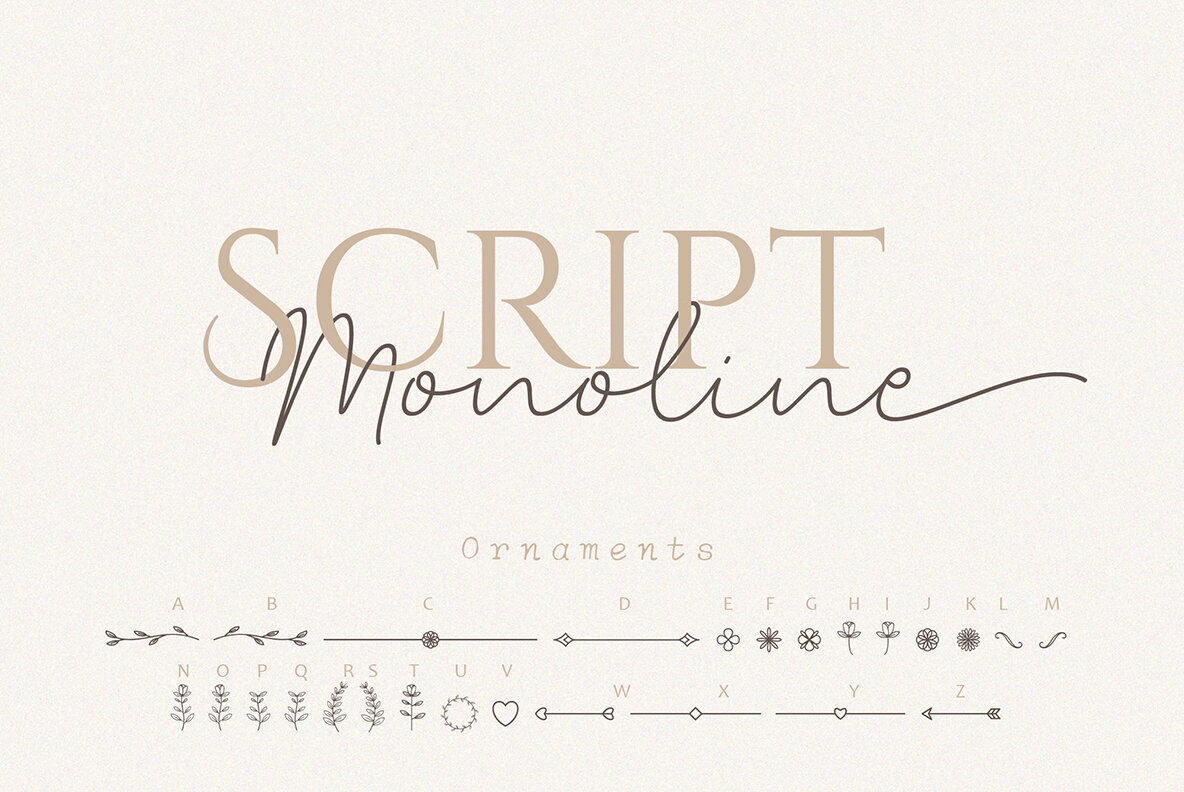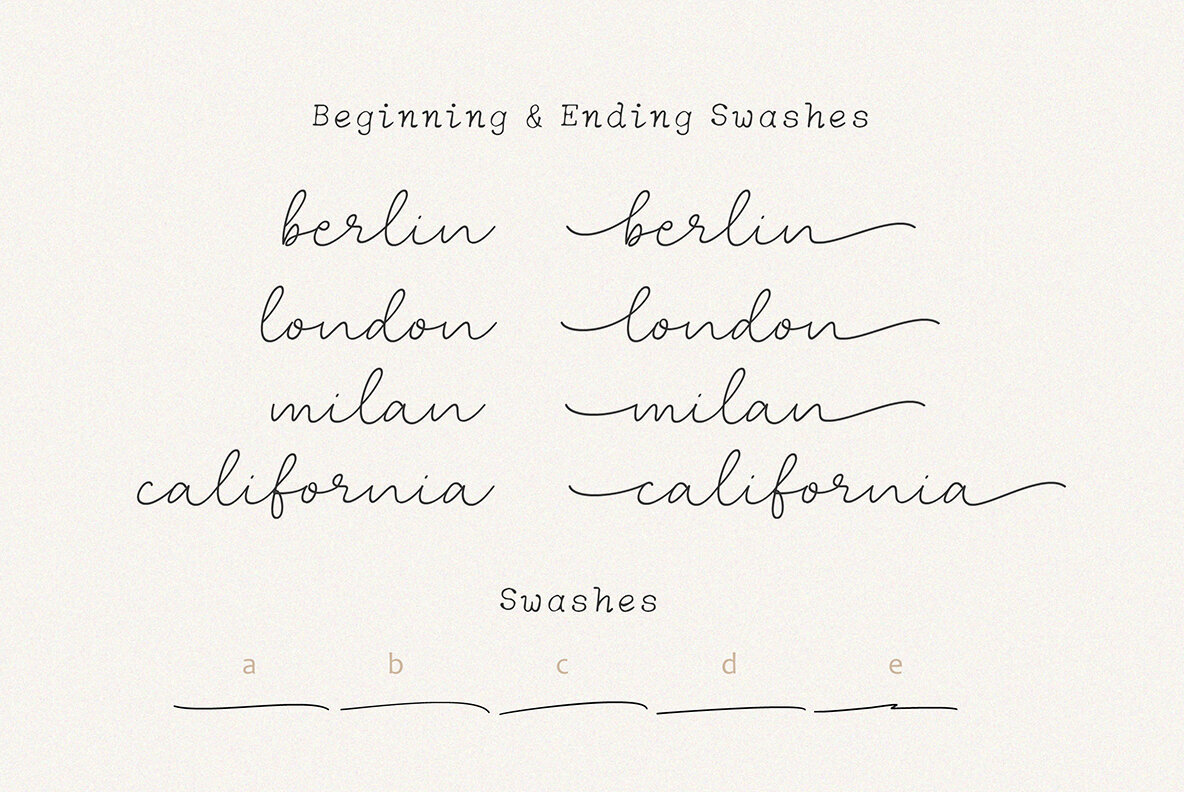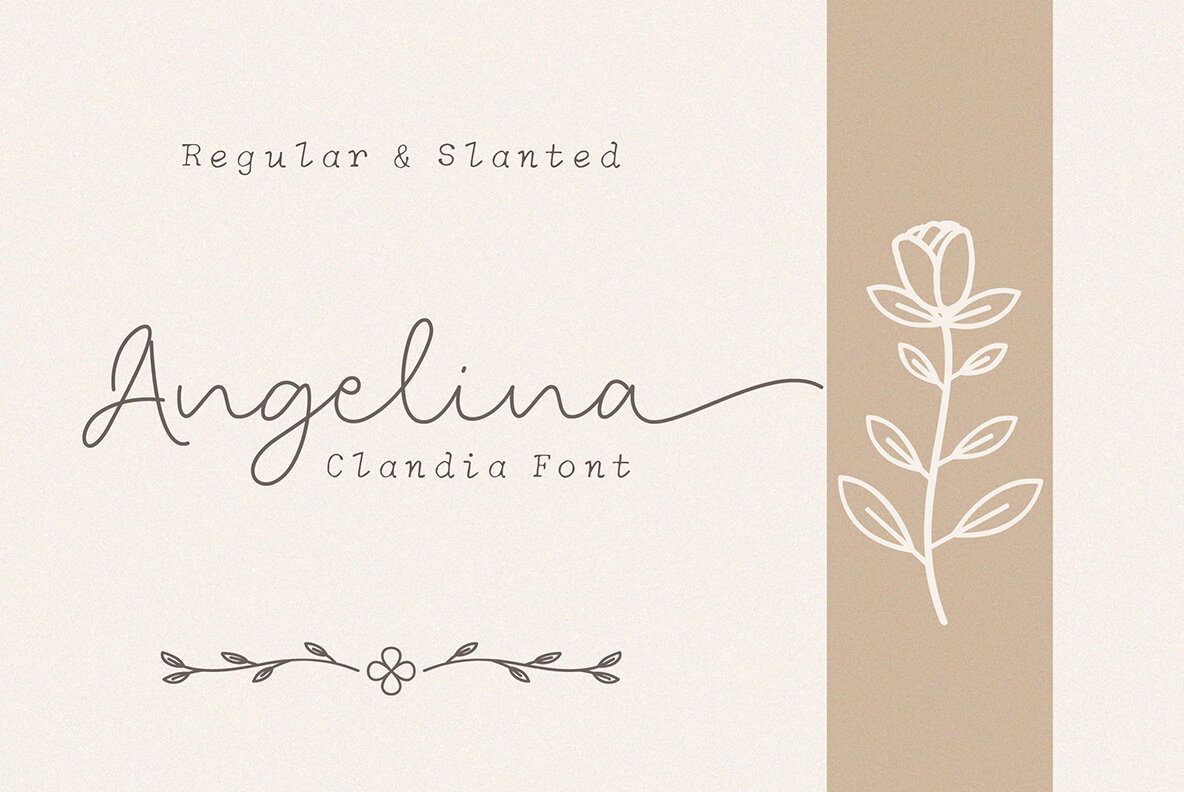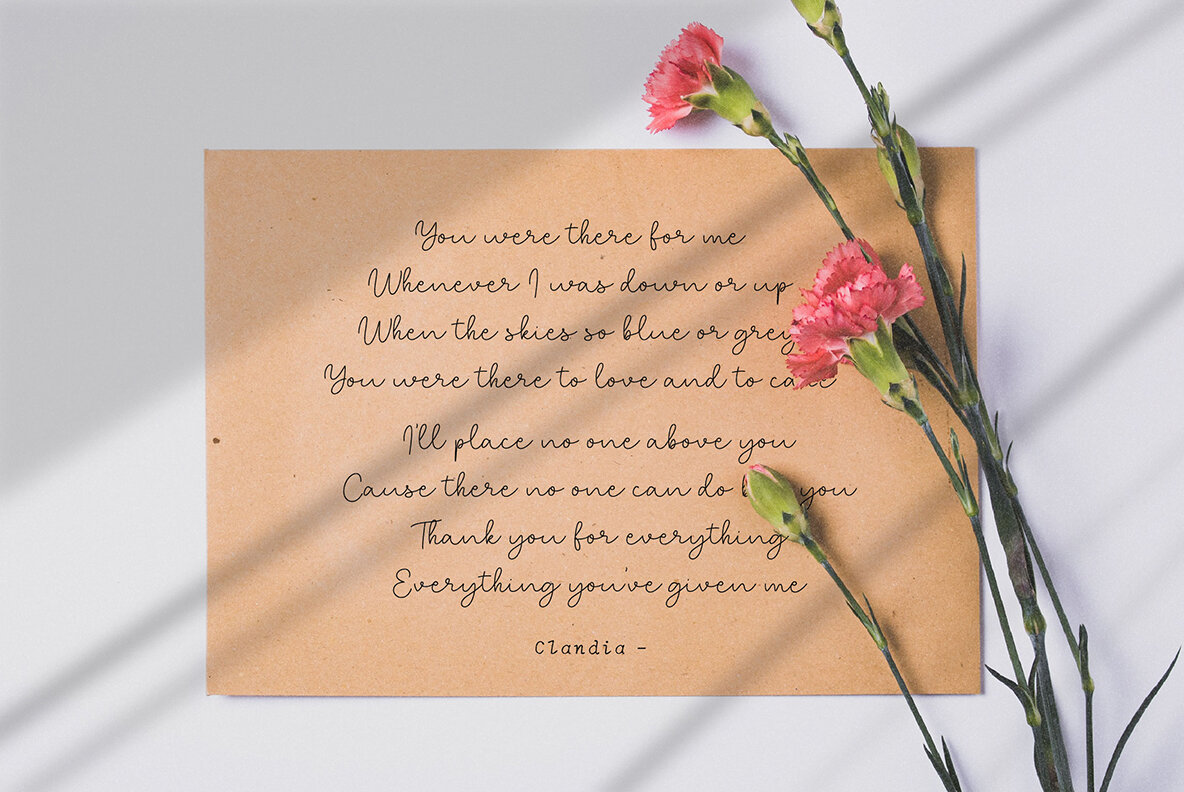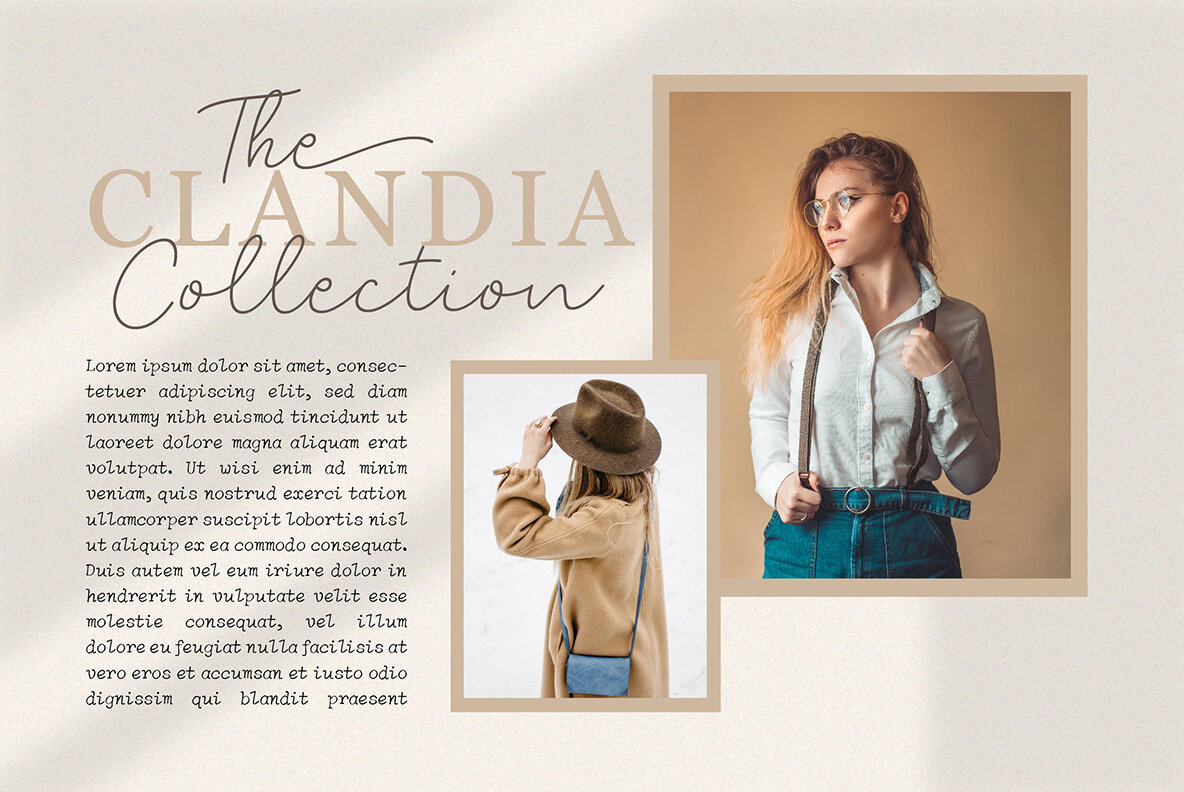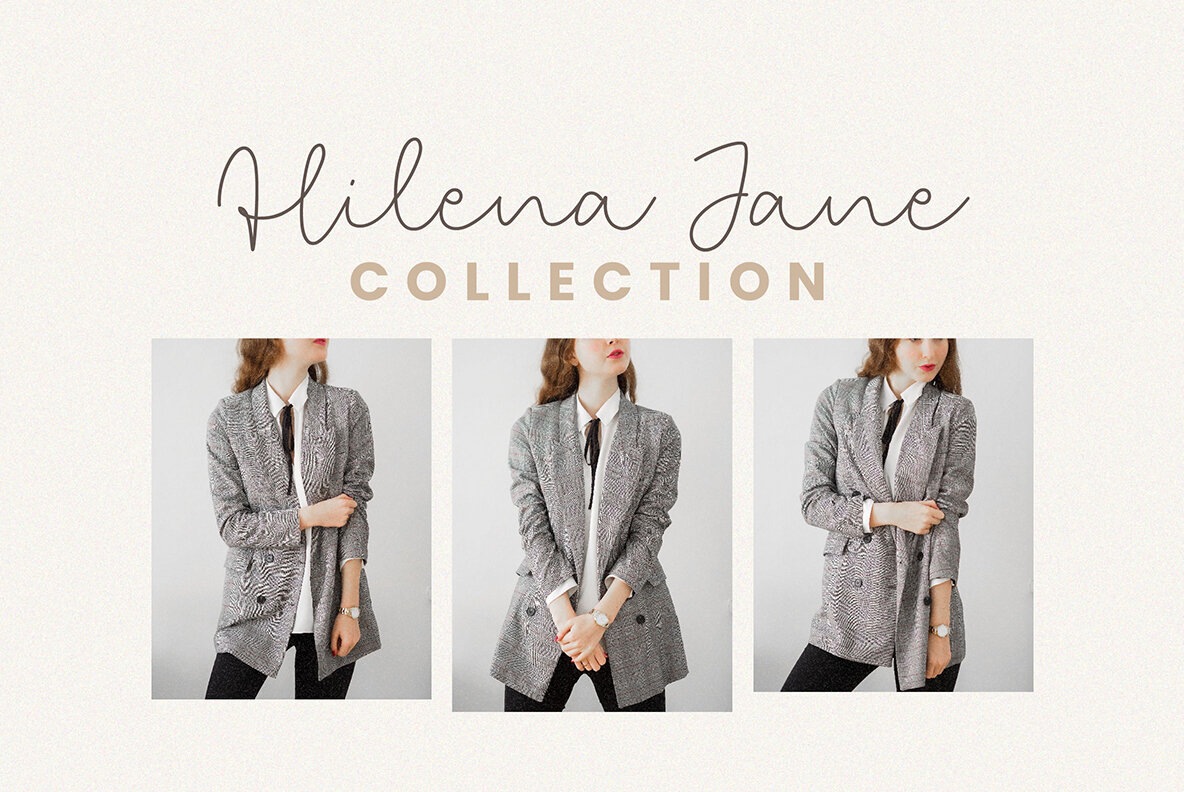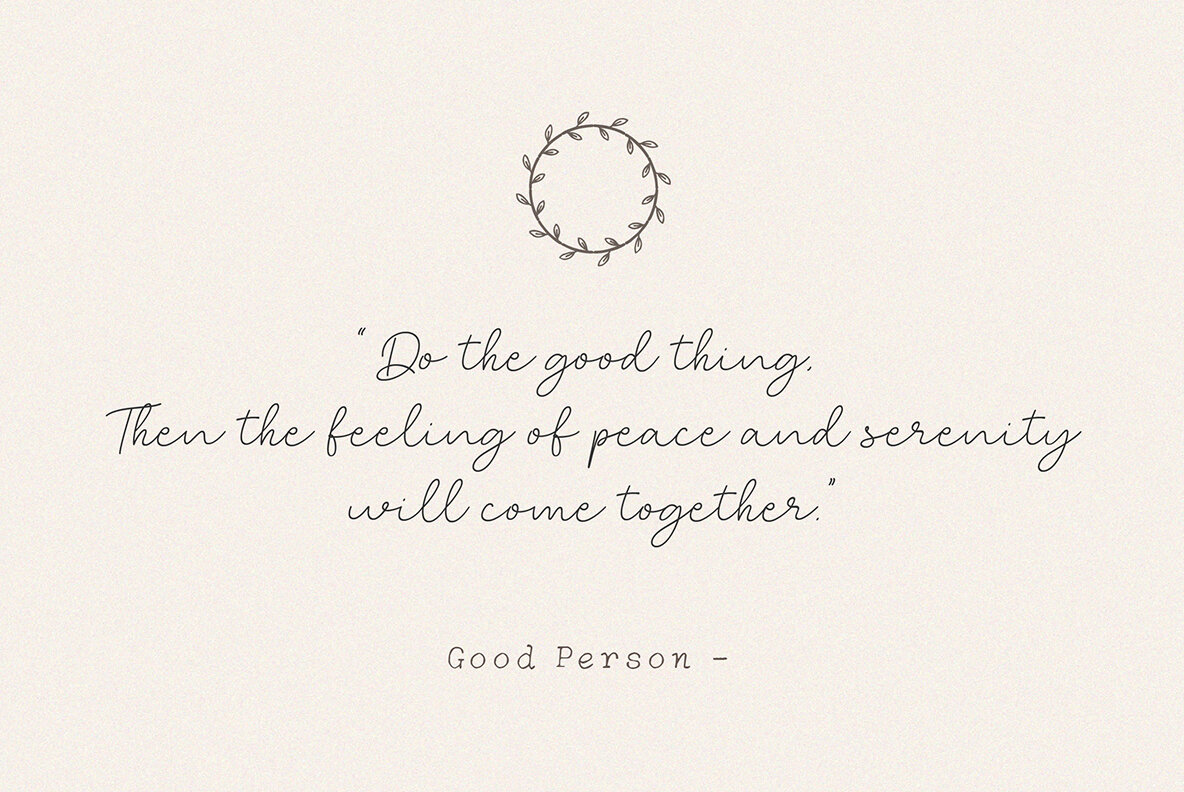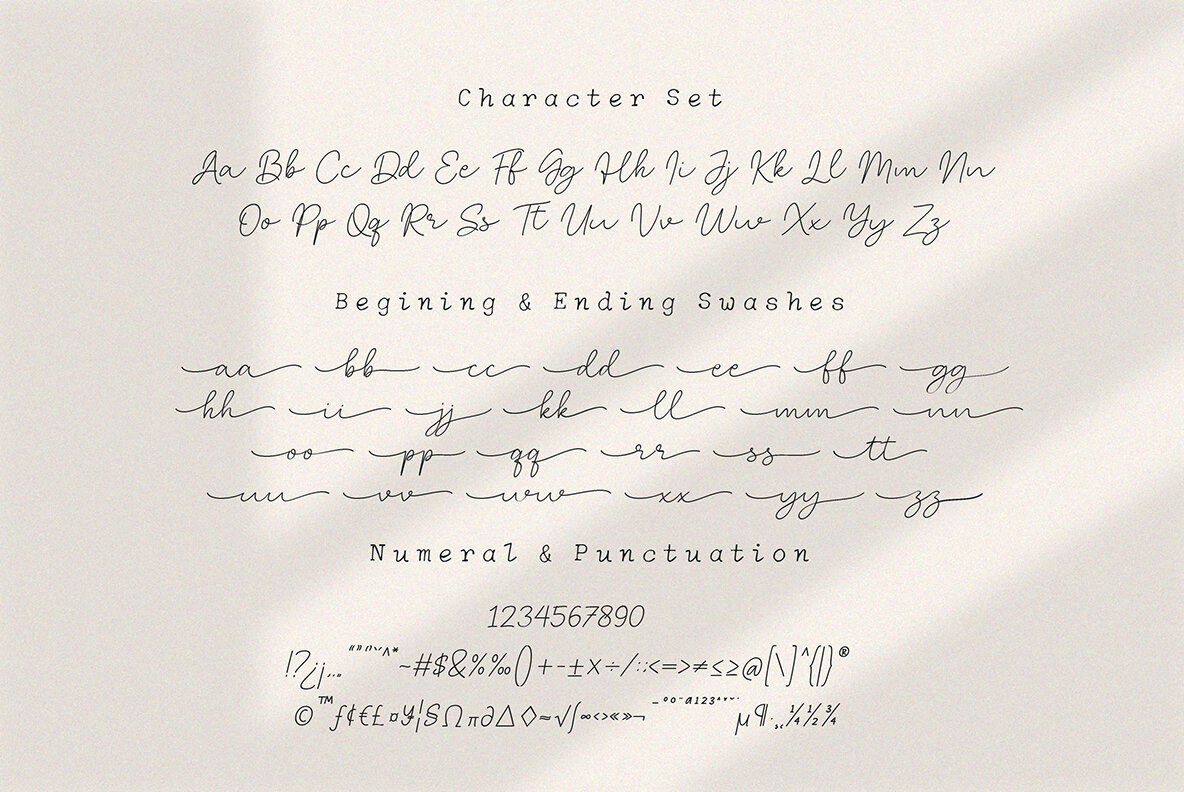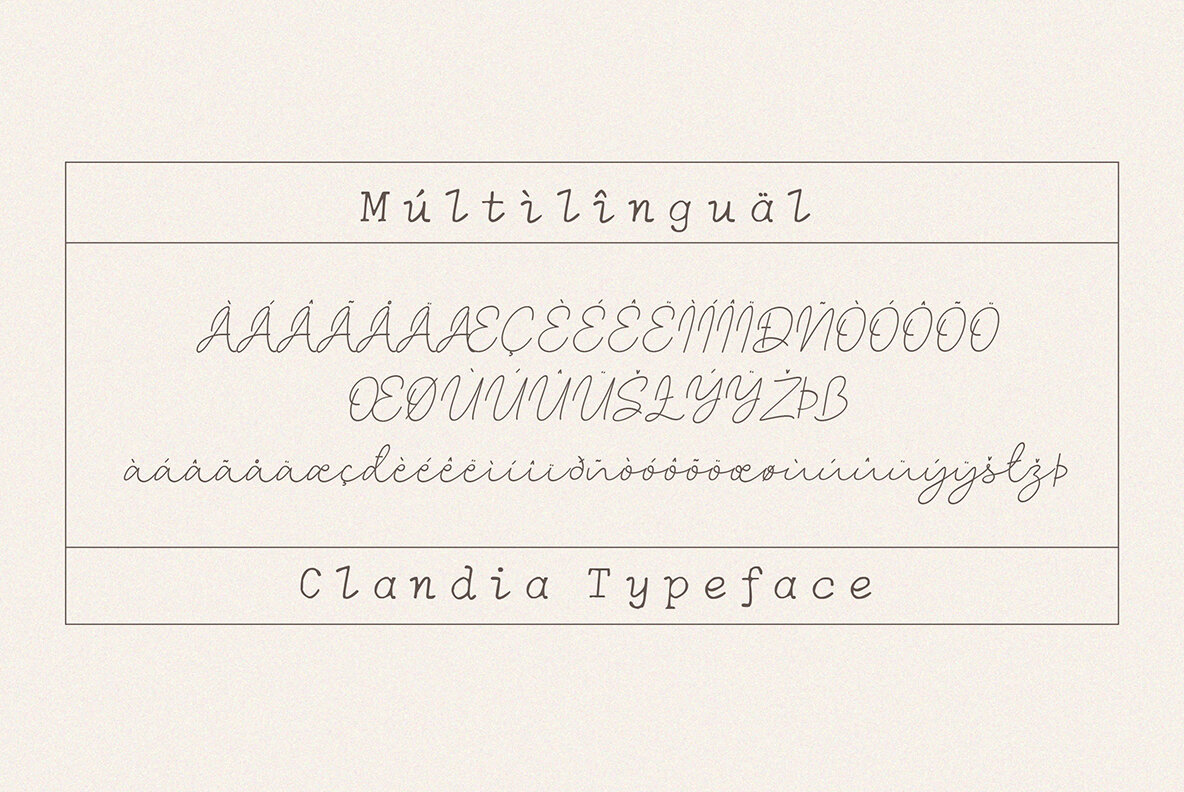
Clandia Font
Clandia offers a distinctive and versatile monoline script style that is ideal for crafting exquisite wedding invitations, beautiful stationery art, and engaging social media posts. Complete with a range of ornaments, beginning, and ending swashes, it brings elegance to any project. Clandia is designed for easy application. You can use the ending swashes without requiring software that supports OpenType features, as these components are provided separately for your convenience.Clandia: Versatile Monoline Script Font
Ease of Use